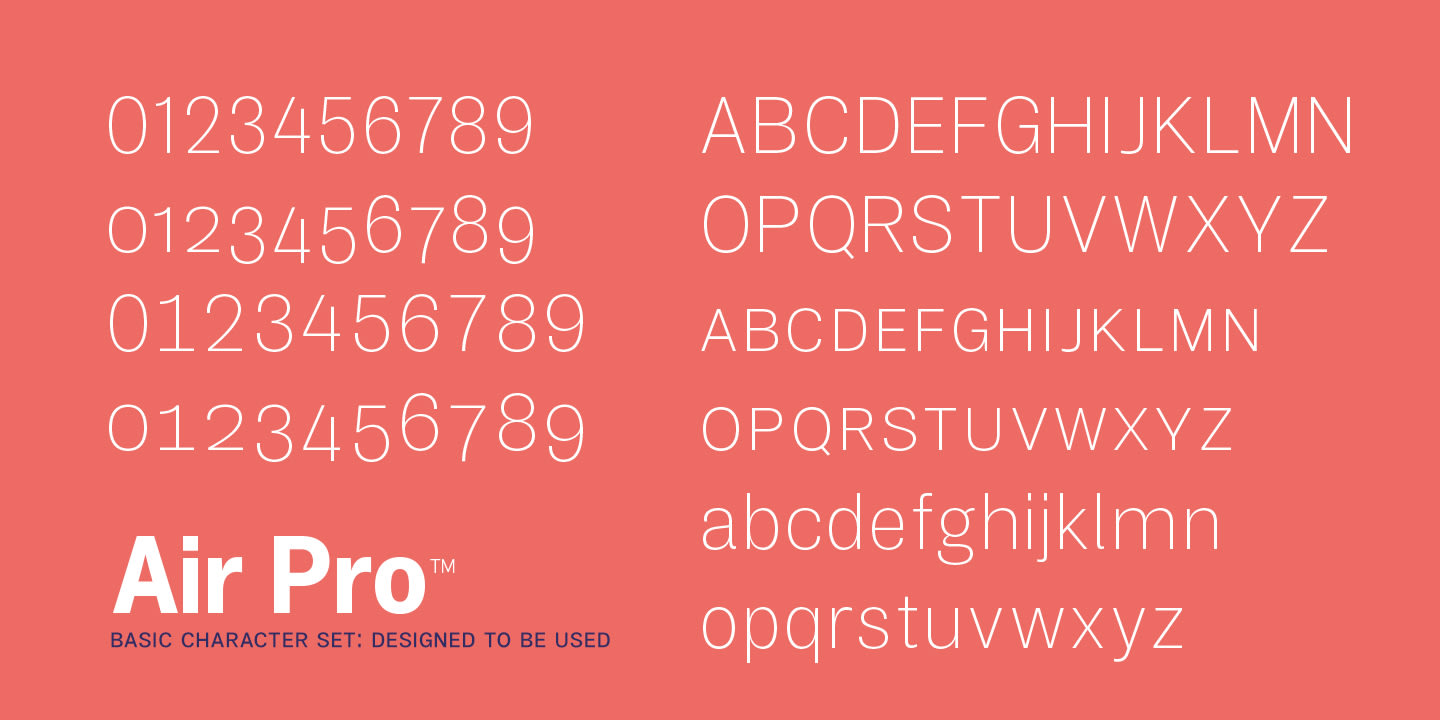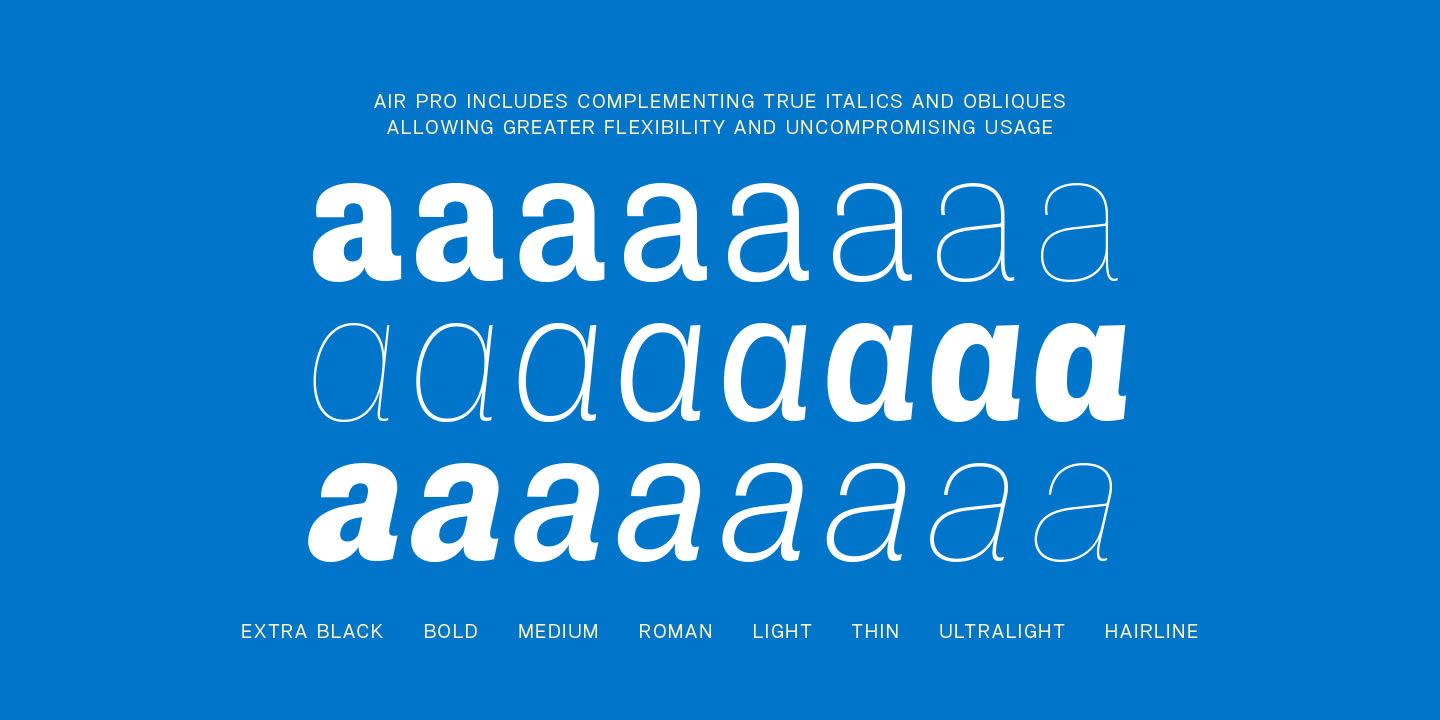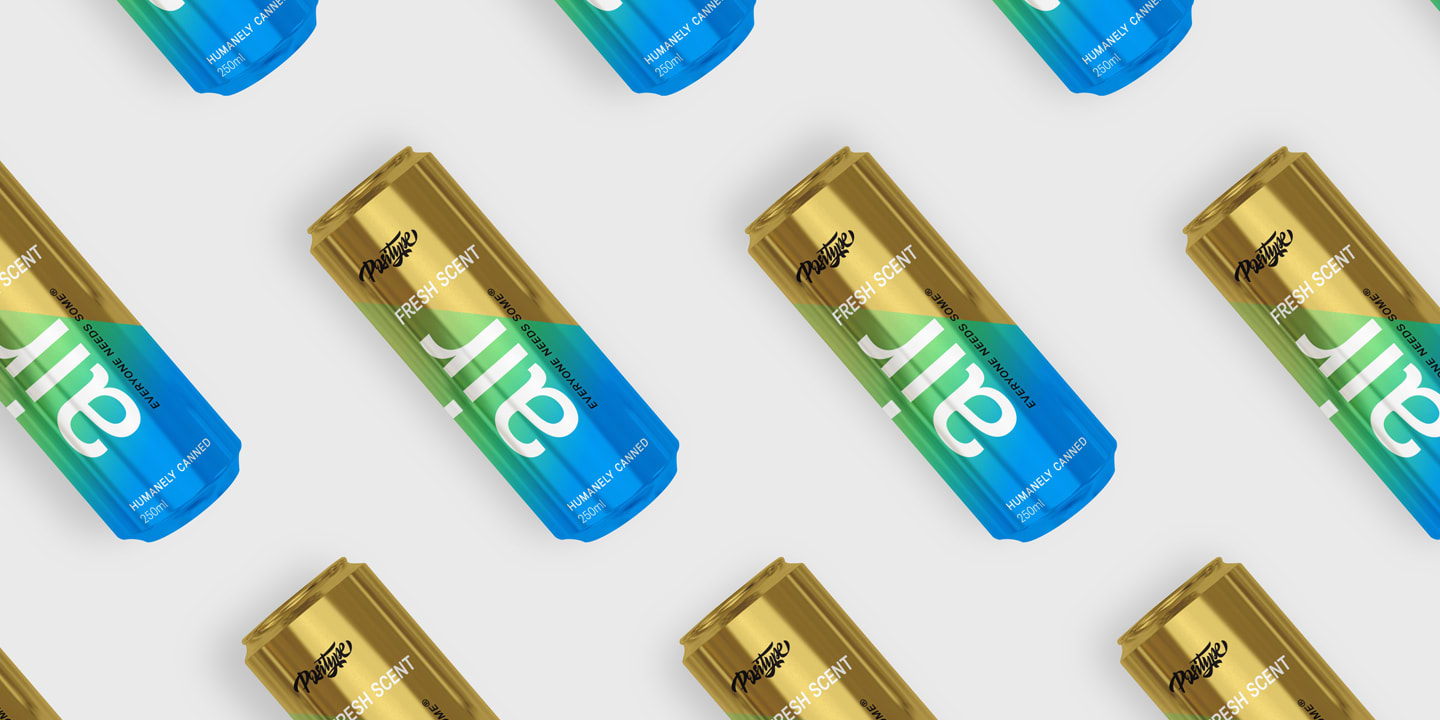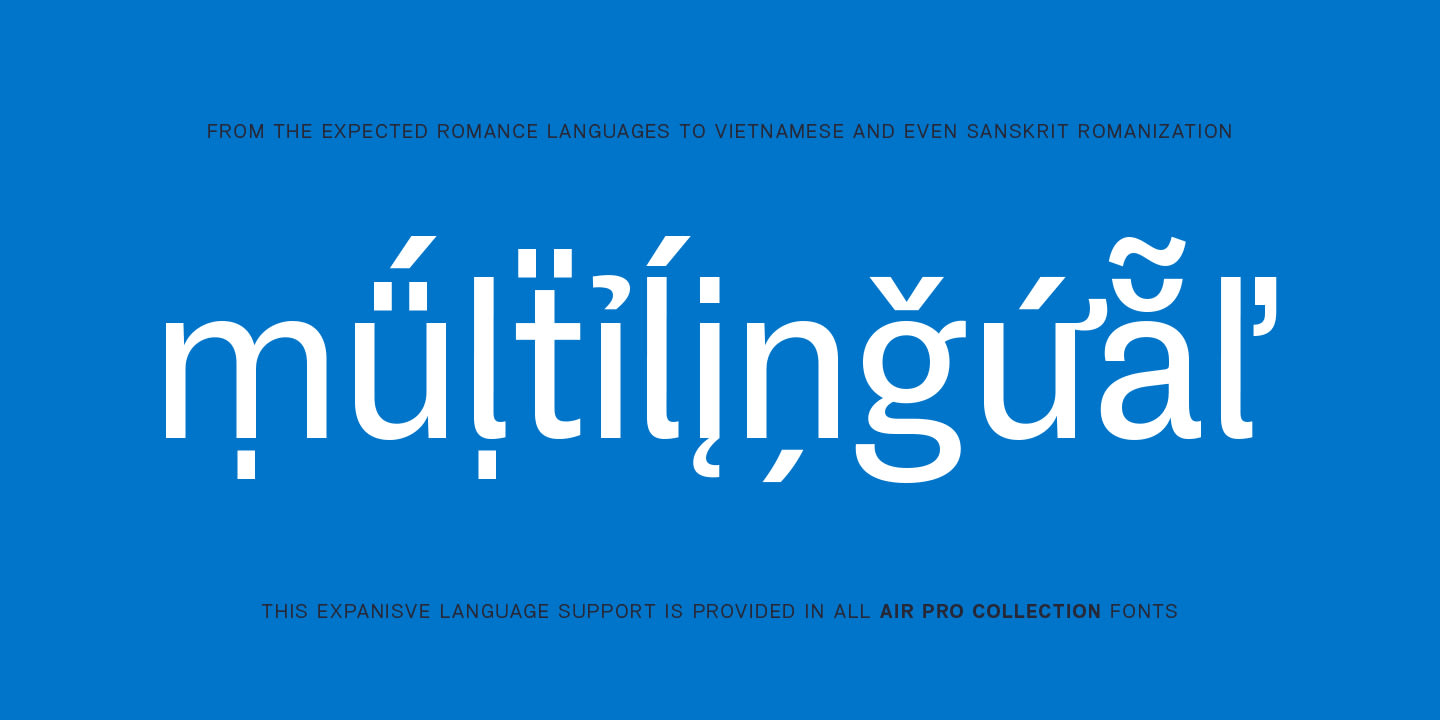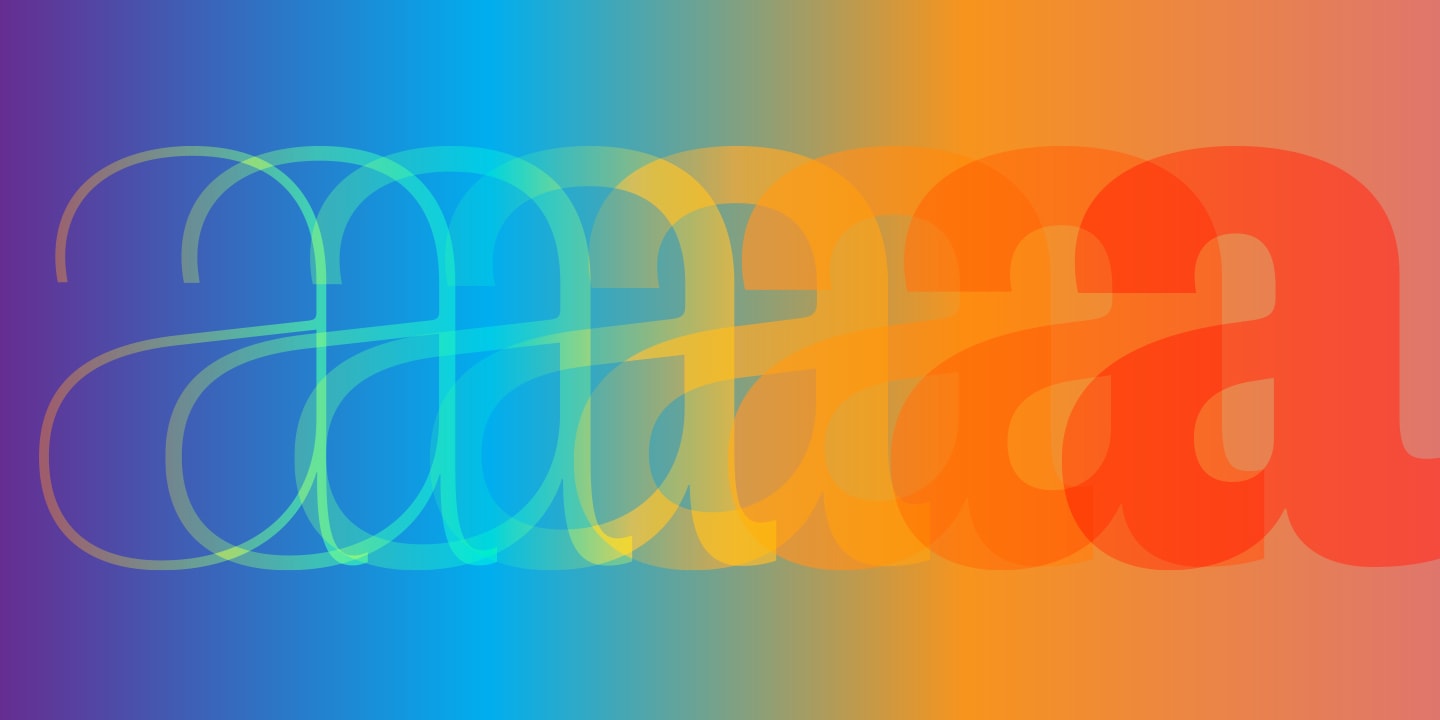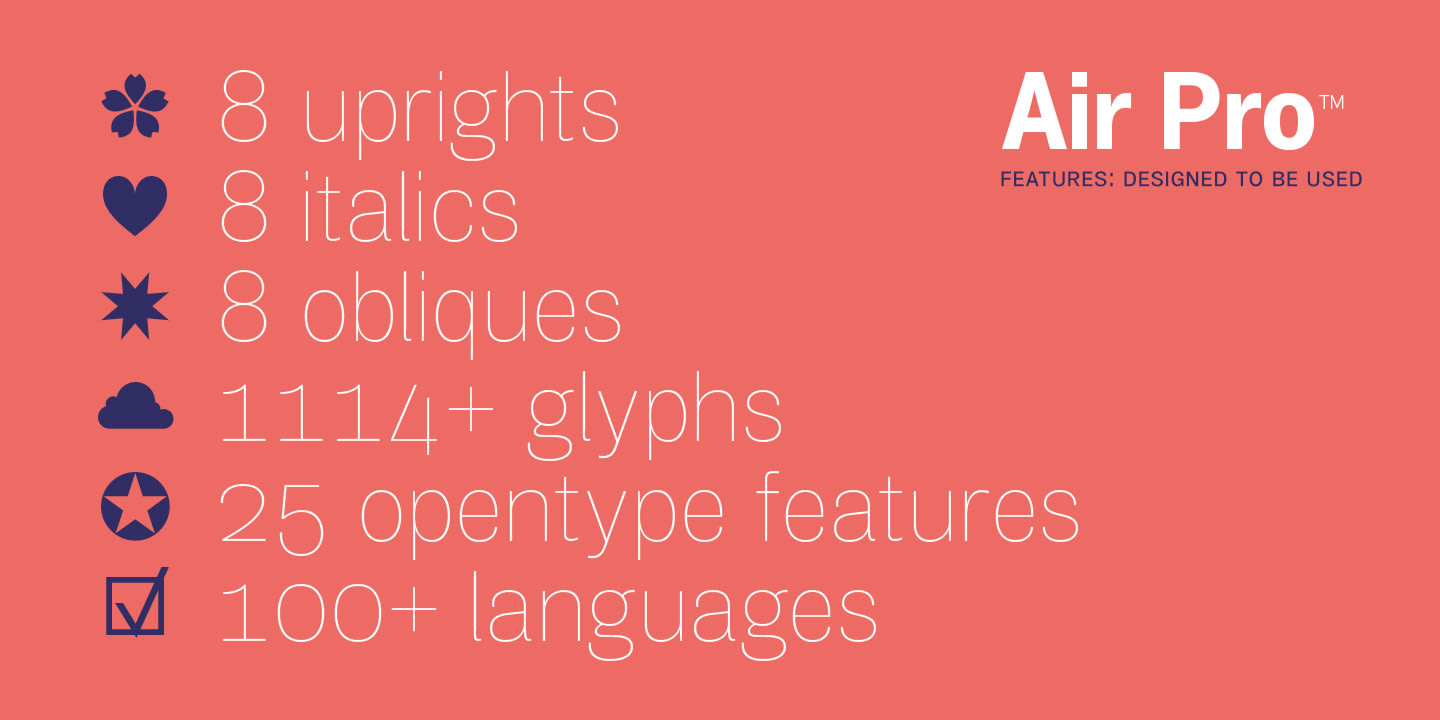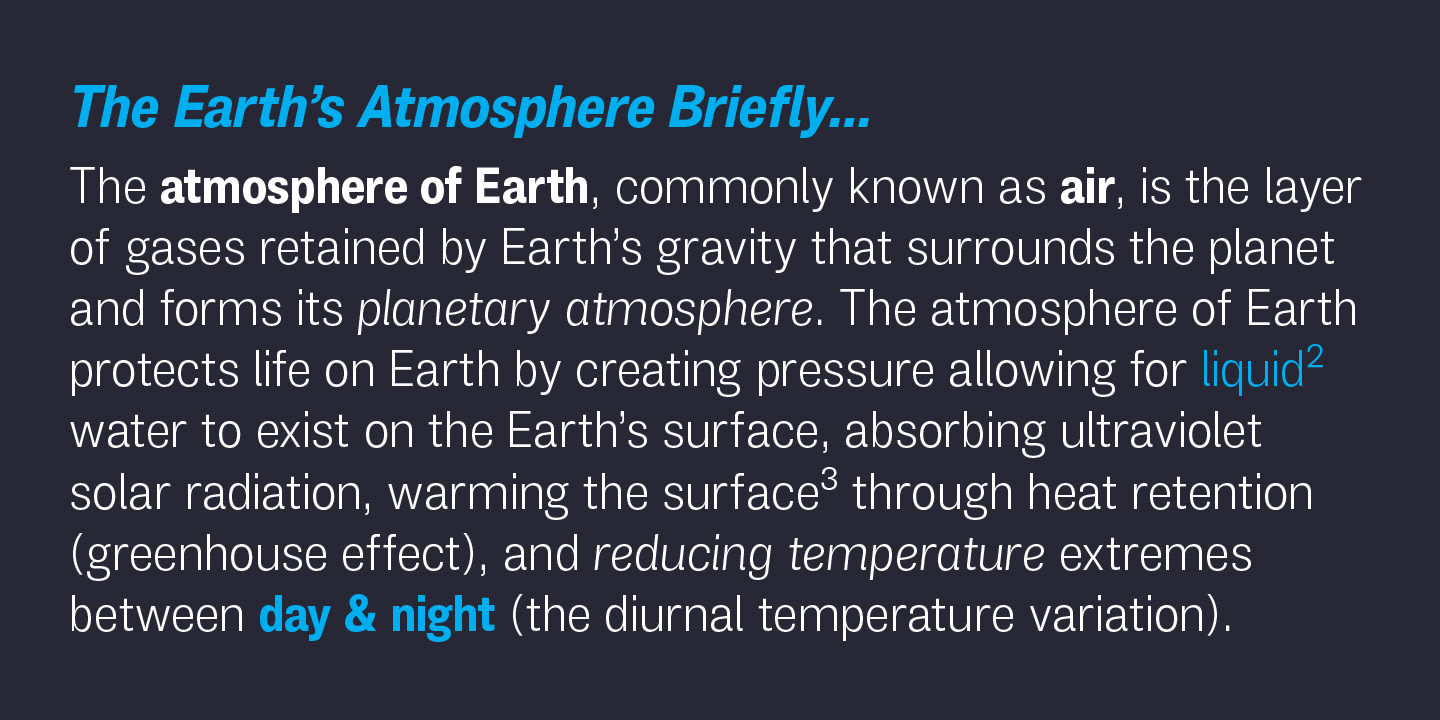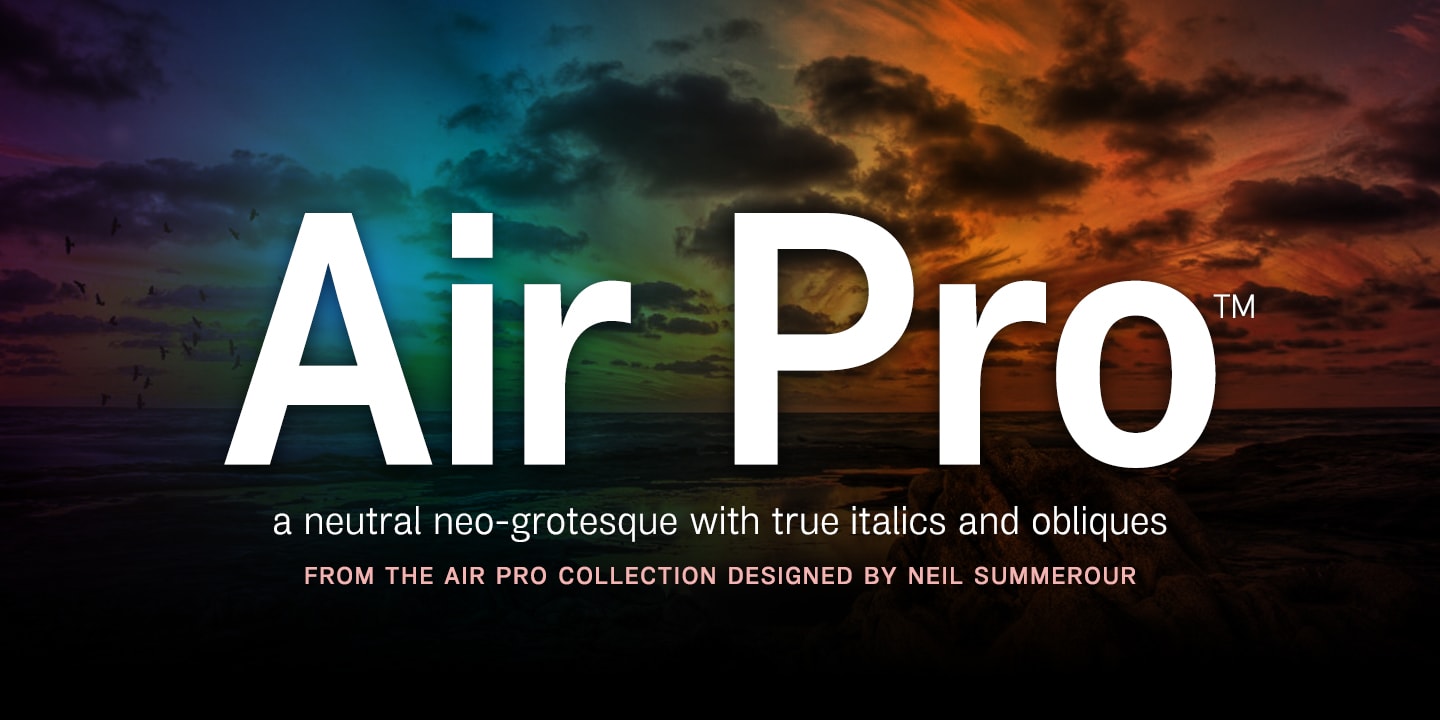
Air Pro
Designer:Neil Summerour
OpenType Features
Small Caps
Small Capssmcp
1/2 3/4 5/8 7/16
Fractionsfrac
xn-283
Superscriptsups
H₂O CO₂ H₂SO₄
Scientific Inferiorssinf
2nd 46th
Ordinalsordn
(H) [H] @
Case-Sensitive Formscase
0123456789
Oldstyle Numeralsonum
0123456789
Tabular Numeralstnum
JMQfgky@
Stylistic Set 1ss01
Description
Air Pro is a neutral, highly legible neo-grotesque that includes both true italics and obliques. This typeface is refinement and expansion of Air, originally designed in 2011 by Neil Summerour. Heavily influenced by Summerour’s Aaux Next typeface and Akzidenz-Grotesk, the typeface features a very efficient footprint, logical weight options, small caps, expanded numeral sets, extensive language support, and 5 total widths. The new Air Pro Collection focuses on flexibility, accessibility, and usability rather than hinging the design on distracting design traits that could diminish legibility or become dated over time. Besides, even with grotesques, we all need a little fresh air from time to time.